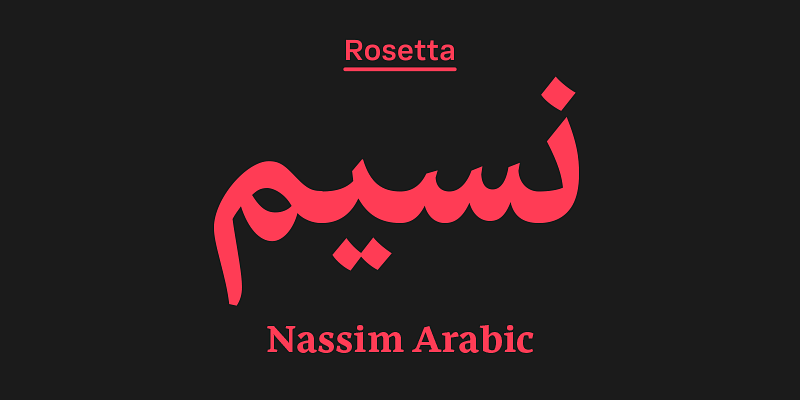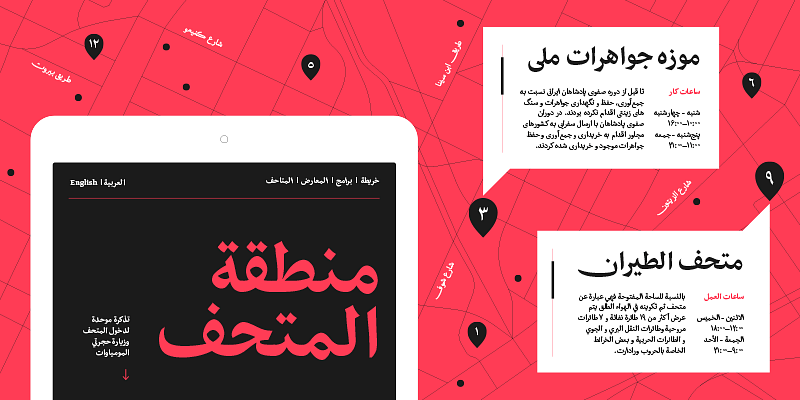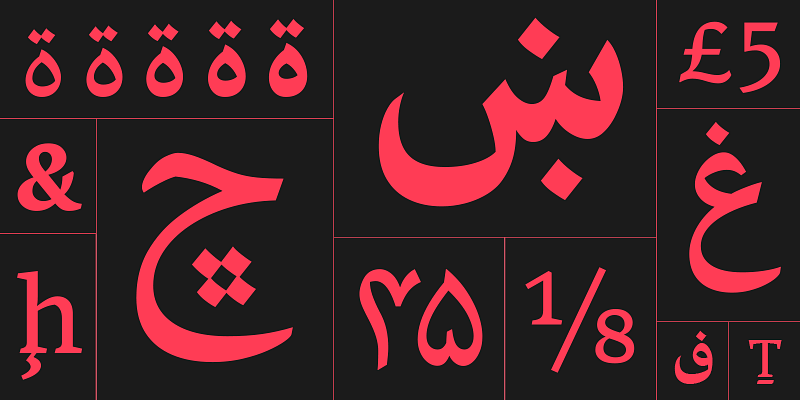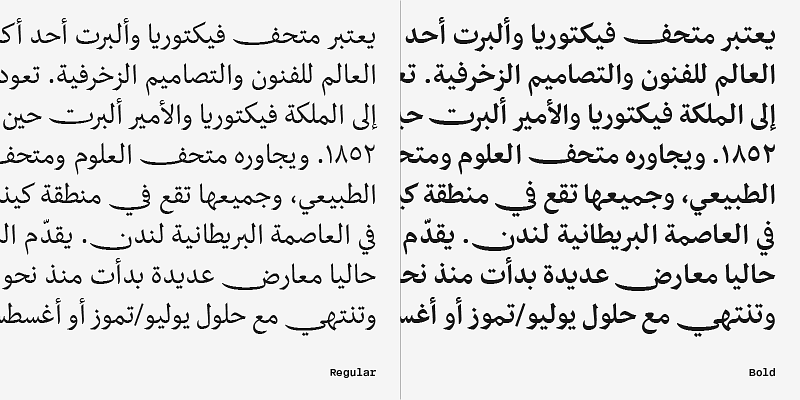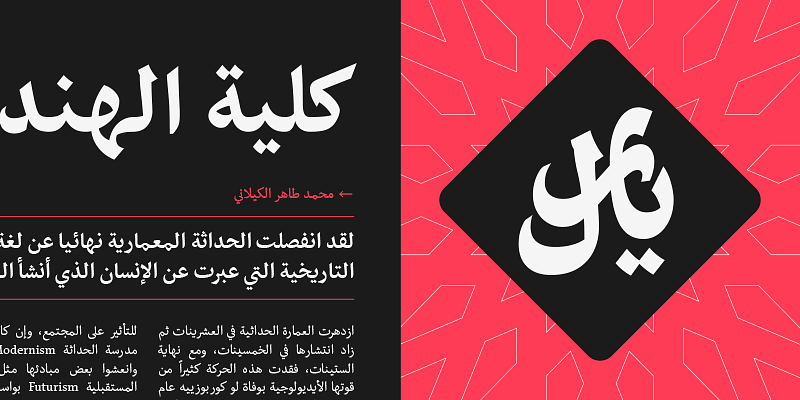
Nassim Arabic is a contemporary typeface for multilingual text-setting, with a lively texture and balanced rhythm in Arabic paired with a finely harmonized Latin.